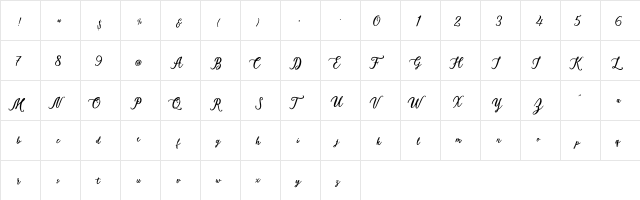
Elisofia Calvin Regular
| Foundry | Mercurial |
| Designer | Salt |
Design Context for Elisofia Calvin Typeface
Elisofia Calvin is a composed and adaptable typeface that performs quietly and consistently across a wide range of design contexts.